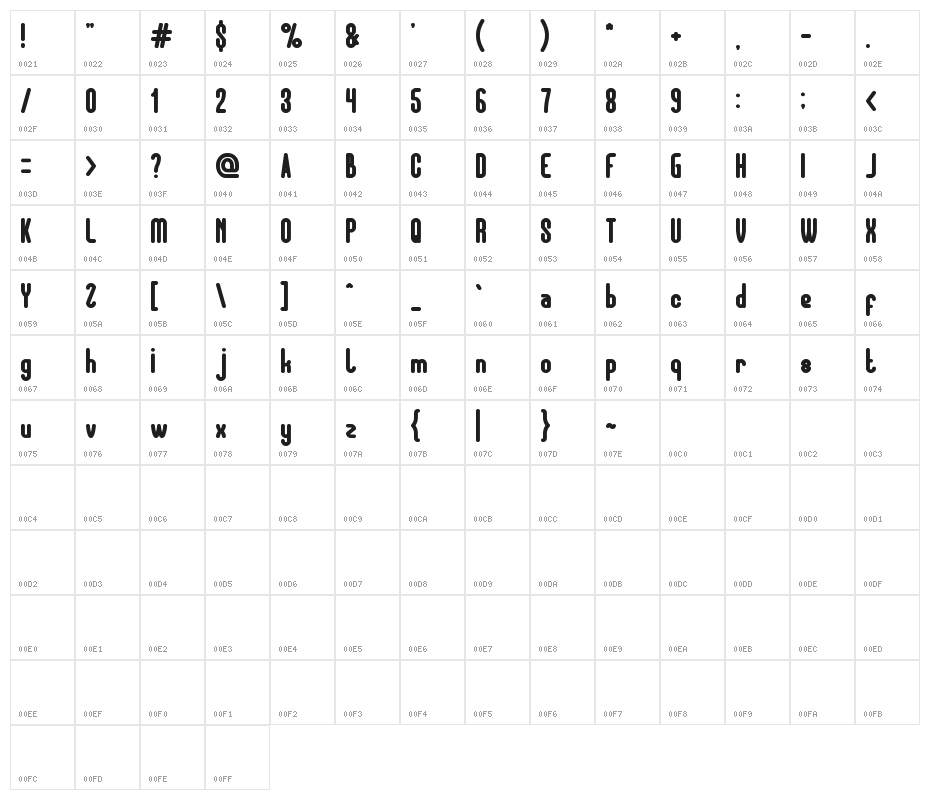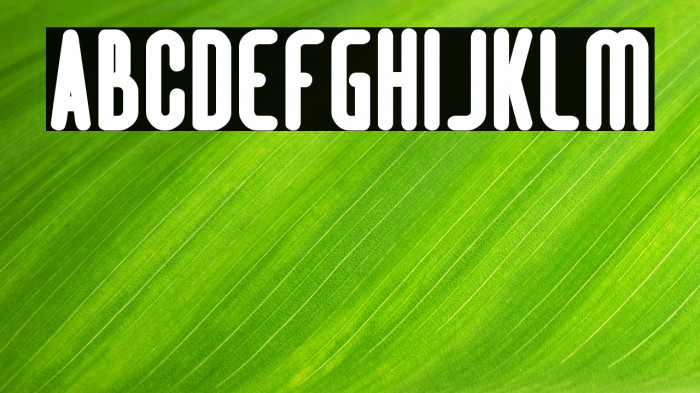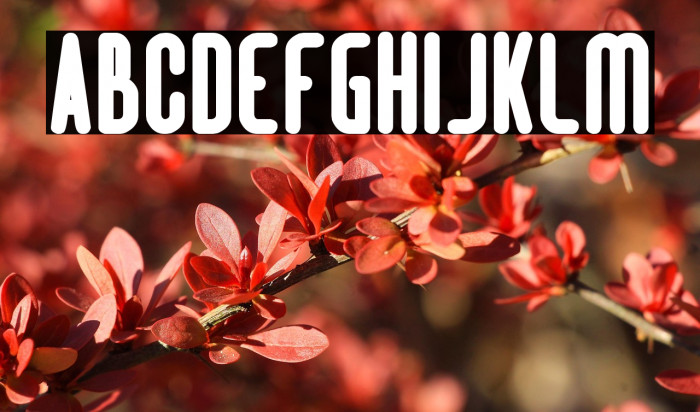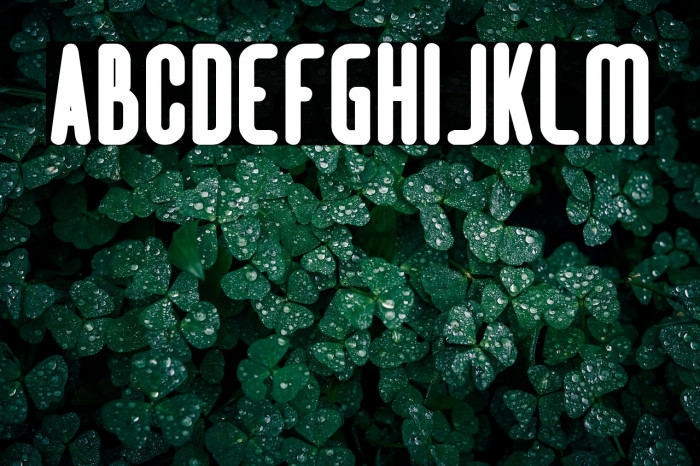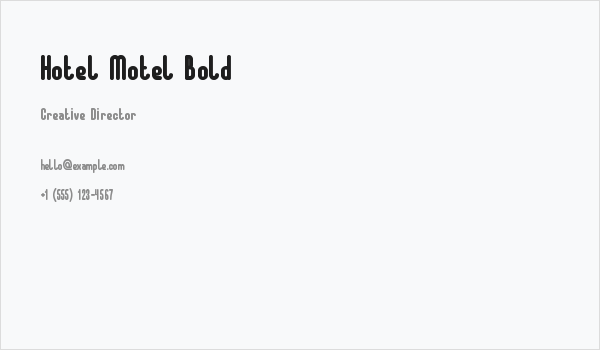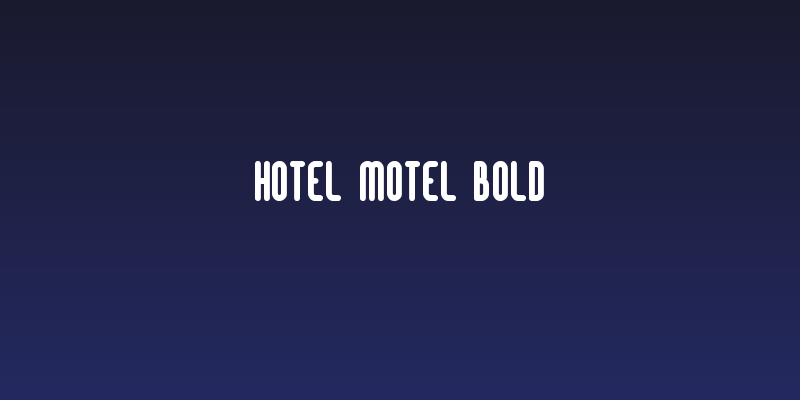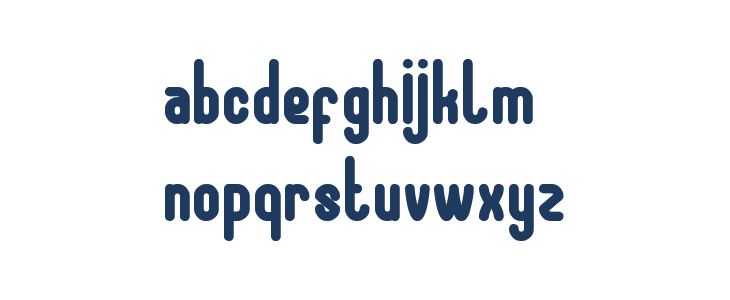
Hotel Motel Bold Font
Hotel Motel Bold Description
This font features bold, rounded characters with a playful and retro aesthetic. The uppercase and lowercase letters maintain a consistent thickness, creating a cohesive look. The numbers and special characters follow the same style, ensuring uniformity across all text elements. The rounded edges and thick strokes give it a friendly and approachable feel, making it suitable for eye-catching designs. Its boldness ensures high readability, even from a distance, making it ideal for signage and headlines.
| Overall Style | Retro |
| Use Case | Headlines, Logos, Signage |
| Proposed Projects | Ideal for retro-themed posters, signage, branding, and playful graphic designs. |